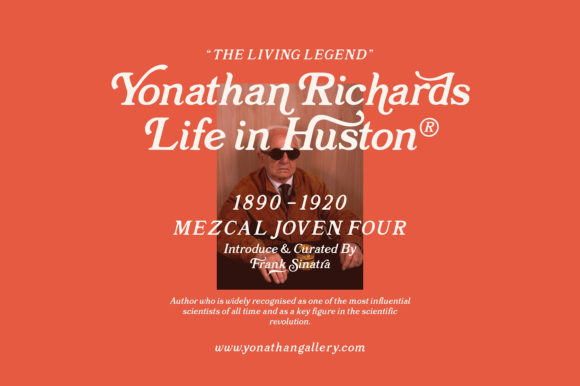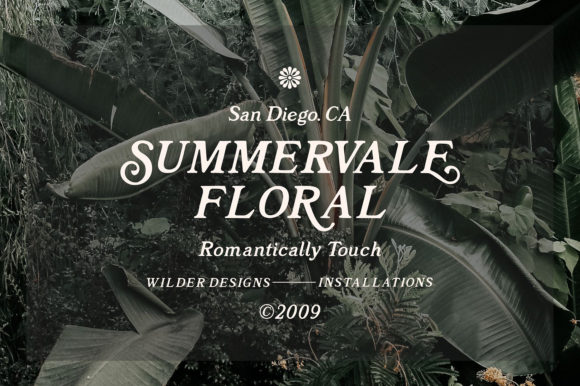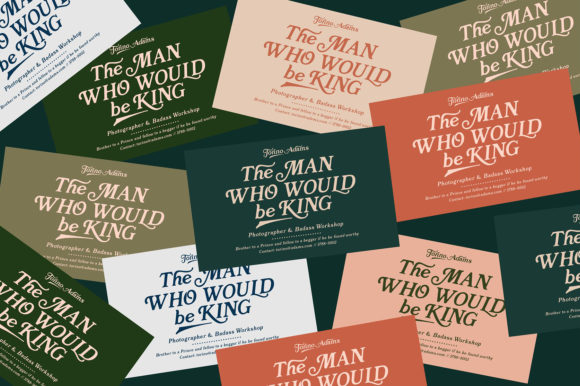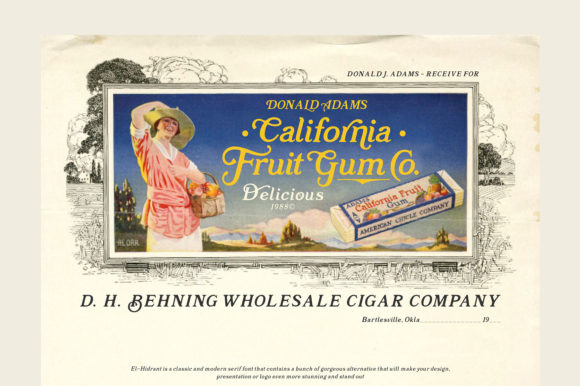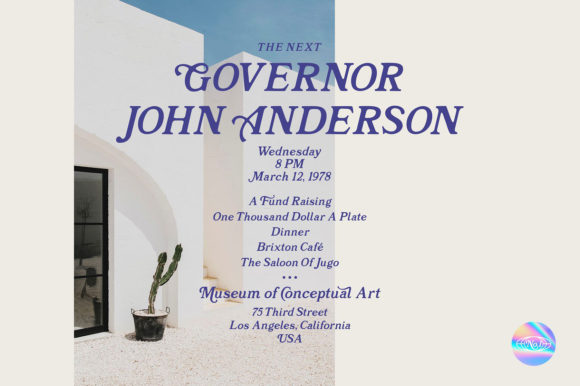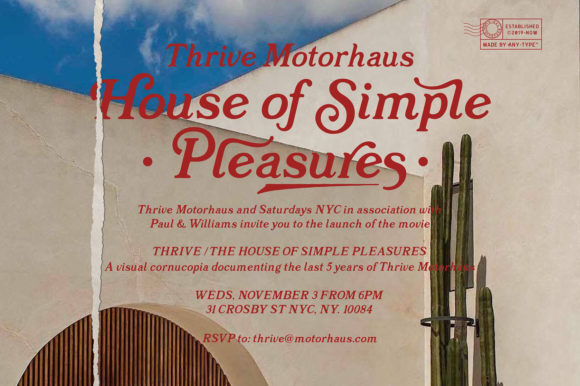
Introducing El-Hidrant Font: Elevate Your Designs with a Vintage Flair
Are you on the hunt for a font that can add a touch of elegance and sophistication to your designs? Look no further than El-Hidrant, a vintage-styled and unique serif font that’s sure to become a favorite among designers and crafters alike. With its masterful design and versatility, El-Hidrant has the potential to bring each of your creative ideas to the highest level.
The Charm of El-Hidrant Font
El-Hidrant is more than just a font – it’s an experience. Its vintage flair is reminiscent of classic typography, evoking memories of timeless elegance and refinement. The unique serif design adds a touch of whimsy and personality, making it perfect for projects that require a bit of character. Whether you’re designing a logo, creating a poster, or crafting a brand identity, El-Hidrant is sure to make a statement.
What Makes El-Hidrant Stand Out
- Unique Serif Design: El-Hidrant’s serif design is unlike any other. The subtle flair and intricate details make it a true standout in the world of typography.
- Vintage Flair: Inspired by classic typography, El-Hidrant brings a touch of nostalgia and sophistication to your designs.
- Versatility: Whether you’re designing a logo, poster, or brand identity, El-Hidrant is the perfect choice. Its versatility ensures that it will work seamlessly in a variety of contexts.
- Elegance and Sophistication: El-Hidrant exudes elegance and sophistication, making it perfect for projects that require a high level of refinement.
How to Use El-Hidrant Font
El-Hidrant is incredibly easy to use, making it accessible to designers and crafters of all levels. Here are a few ways to incorporate El-Hidrant into your projects:
- Logos and Branding: Use El-Hidrant to create a unique and memorable logo that sets your brand apart.
- Posters and Flyers: Add a touch of elegance and sophistication to your posters and flyers with El-Hidrant.
- Packaging and Labels: Use El-Hidrant to create eye-catching packaging and labels that showcase your brand’s personality.
- Digital Designs: El-Hidrant works seamlessly in digital designs, making it perfect for websites, social media graphics, and more.
Tips for Getting the Most Out of El-Hidrant
To truly get the most out of El-Hidrant, here are a few tips to keep in mind:
- Experiment with Font Sizes: El-Hidrant looks great in a variety of font sizes, so don’t be afraid to experiment and find the perfect size for your project.
- Play with Color: El-Hidrant works well with a range of colors, so try pairing it with different hues to add depth and interest to your design.
- Mix and Match: Don’t be afraid to mix and match El-Hidrant with other fonts to create a unique and eye-catching design.
In conclusion, El-Hidrant is a truly unique and special font that’s sure to become a favorite among designers and crafters. Its vintage flair, unique serif design, and versatility make it the perfect choice for a wide range of projects. Whether you’re looking to add a touch of elegance and sophistication to your designs or simply want to try something new, El-Hidrant is the perfect choice. So why wait? Download El-Hidrant today and start elevating your designs to the highest level!